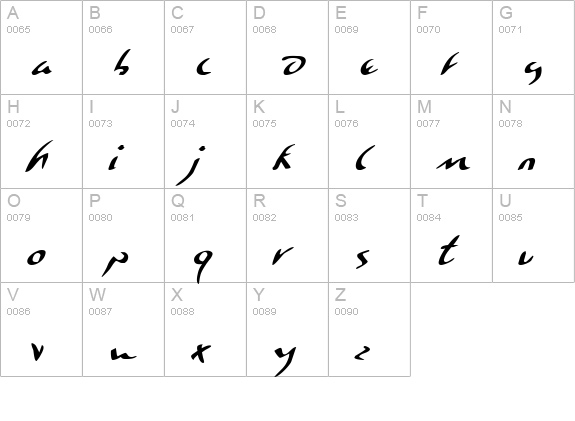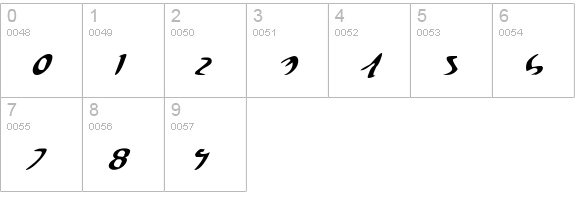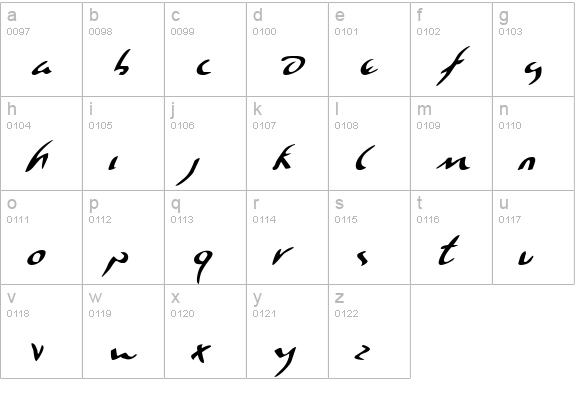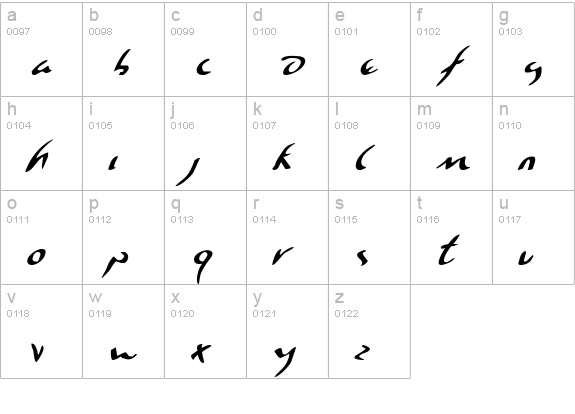
Eagleclaw Italic is a distinctive, italic variant in the Eagleclaw typeface family \xE2\x80\x94 well suited to design and typography projects.
Eagleclaw Italic font is a striking and elegant typeface that exudes sophistication and style. With its sleek and modern design, this font is perfect for adding a touch of class to any project. The italicized letters give a sense of movement and flow, making it ideal for headlines, logos, and branding materials. What sets Eagleclaw Italic font apart is that it is completely free to download at FontsMarket.com. This means that you can access this high-quality font without any cost, making it a valuable addition to your design toolkit. Don't miss out on the opportunity to elevate your designs with the timeless beauty of Eagleclaw Italic font.